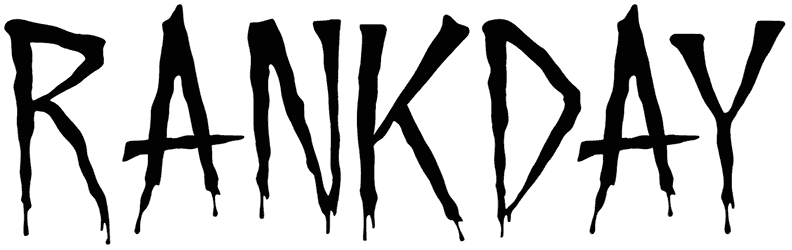
Rankday Font
It’s time to express a more horrifying mood in your future design and surprise your audience. As a horror font, Rankday has bloody-painted letters with an eerie and dark vibe. This Halloween font, with its supernatural style, is an exciting item for a lot of crazy designs, such as invitations, apparel, mugs, flyers, games, and the like.